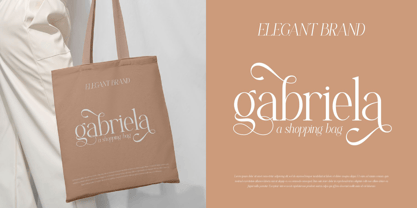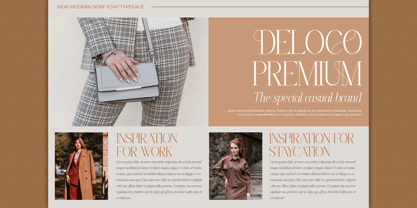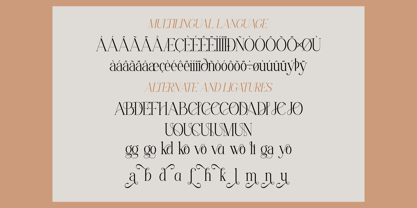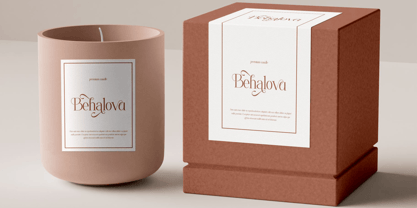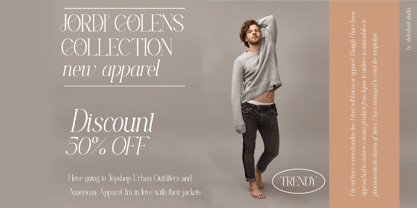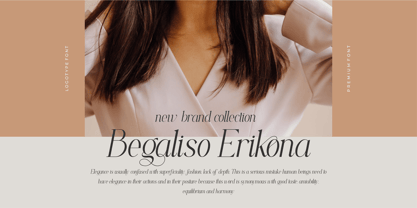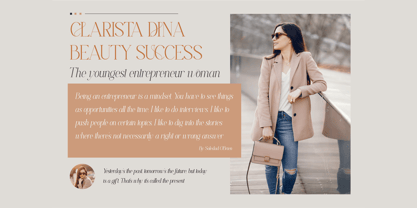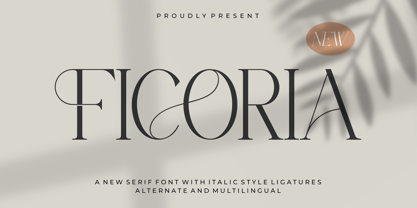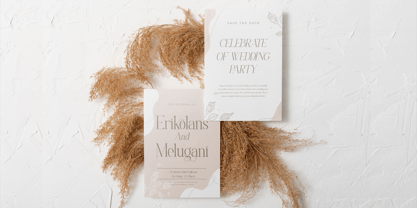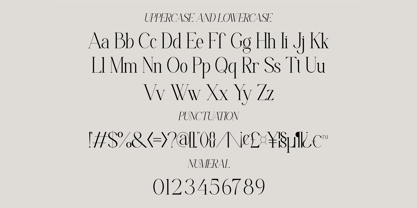
Ficoria
Die Schriftfamilie Ficoria wurde von Ahmad Riqi entworfen und von Slide Shoot veröffentlicht. Ficoria enthält 2 Stile und Familienpaketoptionen. Mehr über diese Familie
Ficoria Serif is a modern and classy font with regular and italic type for all branding and logo designs. This modern and classy Serif font has a beautiful character. This font is suitable for invitation card designs, cool logos, movie titles, movie names, business cards, book titles, brand names, and various other designs. Ficoria Serif is a smooth serif font that exudes sophistication and the moment. Its stylish alterations and ligatures make this font a perfect partner for any project.